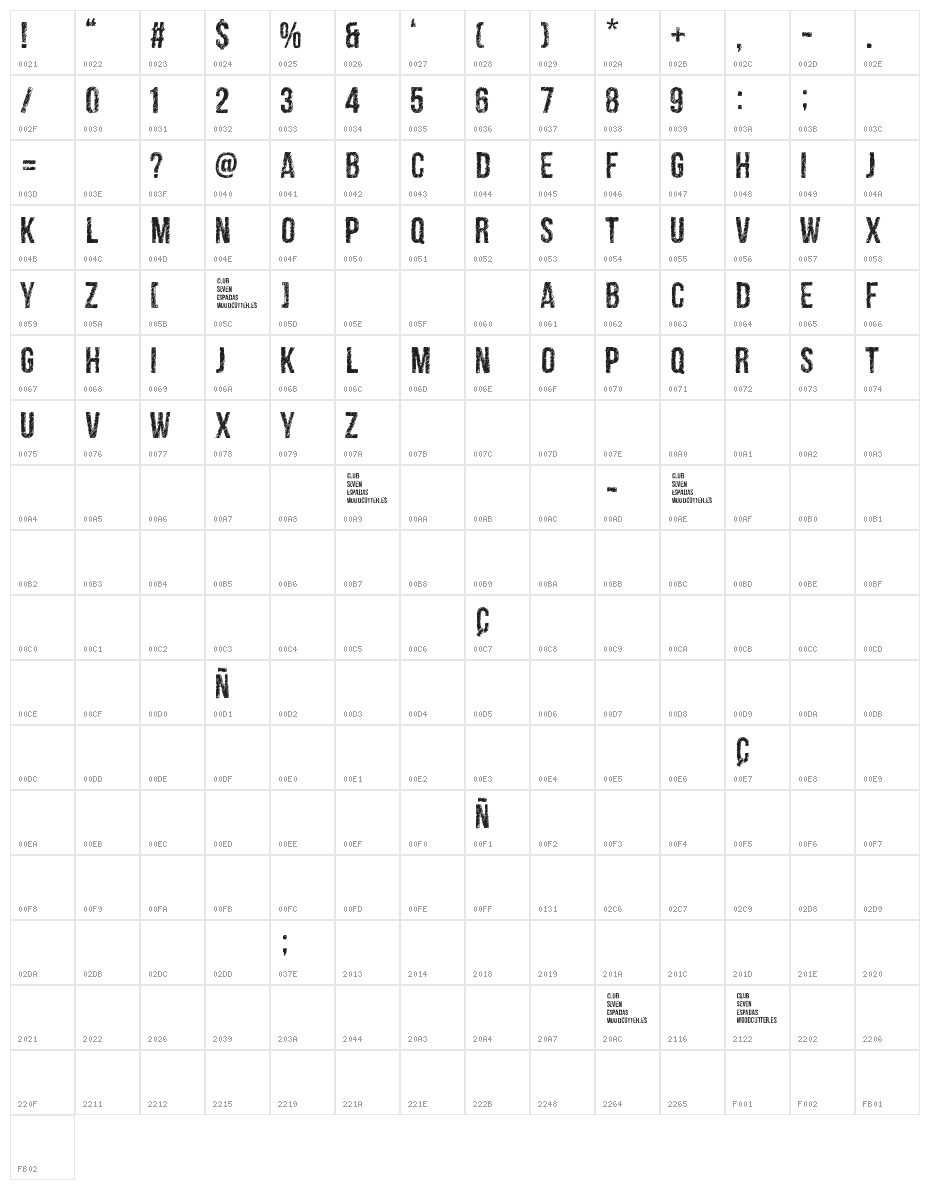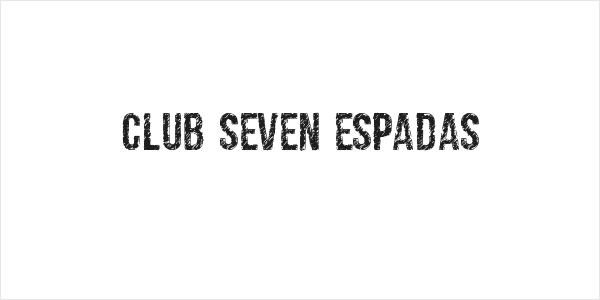
club seven espadas Font
club seven espadas Description
This font features a bold, textured style with a distressed, hand-drawn appearance. The characters are uppercase and have a rugged, sketch-like quality, giving them a dynamic and energetic feel. The strokes are thick and uneven, adding to the font's raw and edgy aesthetic. The numbers and special characters maintain this consistent style, making it suitable for projects that require a bold statement. The font's unique texture and boldness make it stand out, ideal for designs that aim to capture attention with a gritty, urban vibe.
| Overall Style | Urban, Edgy, Raw |
| Proposed Projects | Ideal for posters, album covers, streetwear branding, and event flyers. |